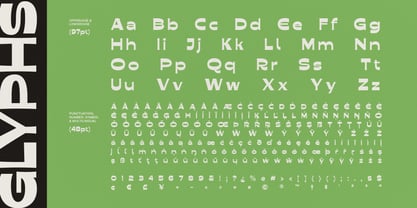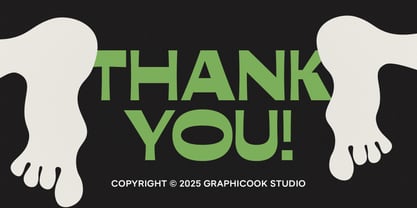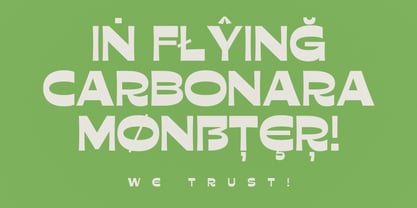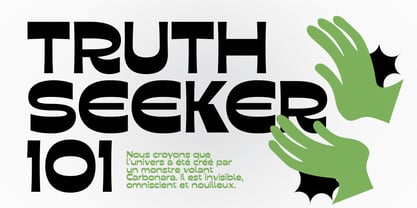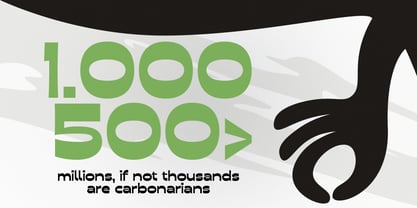
Cook Flarequos
by Graphicook Studio
The Cook Flarequos Font Family was designed by Gumilar Febriansyah and published by Graphicook Studio. Cook Flarequos contains 1 styles. More about this family
Flarequos is an experimental font with wide, uniquely shaped letters and a retro funky vibe. Ideal for headlines and designs that channel energetic, playful, and vintage moods.